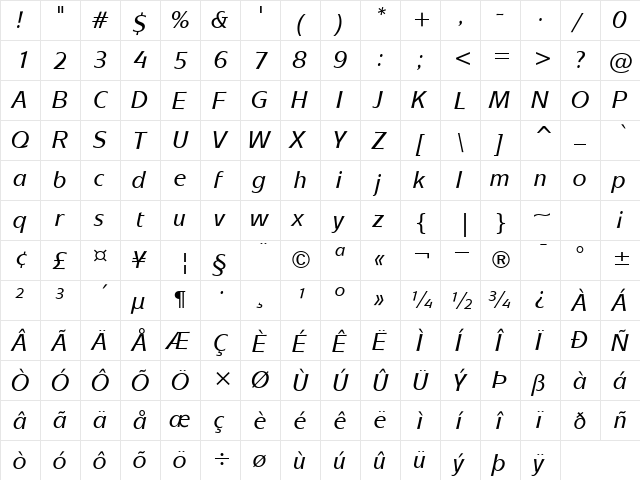
ITCMixage-Medium MediumItalic
Design Context for ITCMixage-Medium Typeface
ITCMixage-Medium is a composed and adaptable typeface that performs quietly and consistently across a wide range of design contexts. The dynamic lean of this cut emphasises speed and emphasis in any layout.
Pro Tip: Try ITCMixage-Medium for annotation and caption copy alongside an upright companion — the contrast in angle creates a dynamic but ordered typographic system.